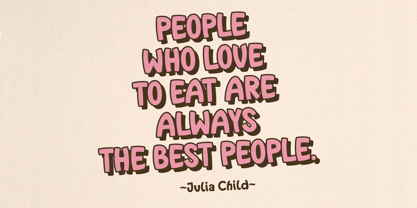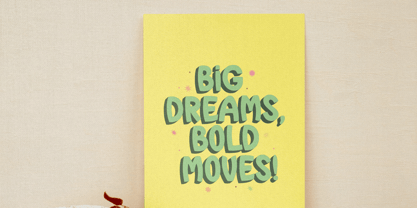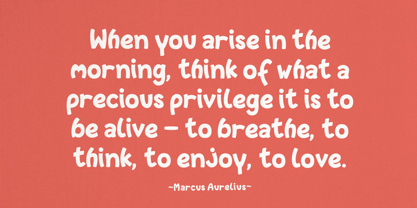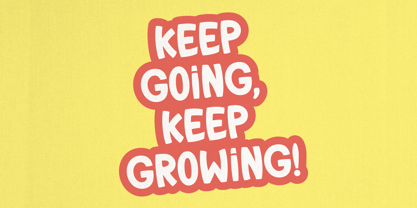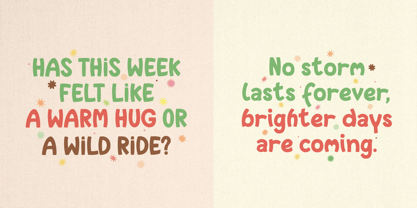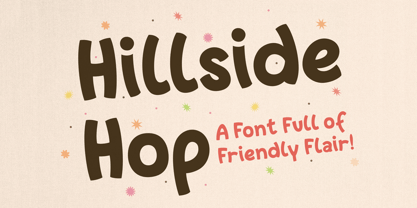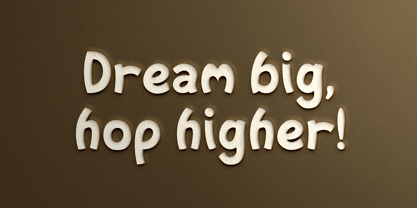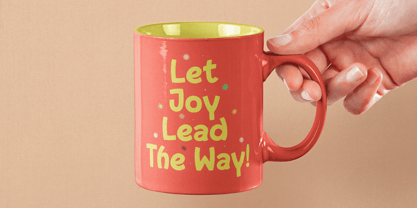
YJC Hillside Hop
Get ready to add a playful twist to your designs with YJC Hillside Hop, a bubbly, bold, and bouncy font that brings instant energy to any project! With its lively curves and organic flow, this font feels like a joyful hop through a field of creativity. Whether you're crafting a fun brand, designing quirky merchandise, or making eye-catching social media posts, YJC Hillside Hop is here to elevate your typography game.
1. A full set of uppercase and lowercase letters with multilingual support
2. Numbers, punctuation, and symbols
Perfect For:
• Food Packaging & Café Menus – Add a fresh, inviting touch to your designs.
• Kids’ Books & Playful Branding – Bring warmth and character to your visuals.
• Greeting Cards & Stickers – Ideal for heartfelt messages and fun designs.
• Social Media Graphics & Quotes – Stand out with bold, eye-catching text.
• T-Shirts, Mugs & Merch – Create memorable products with a friendly vibe.
Let your creativity hop freely with YJC Hillside Hop!